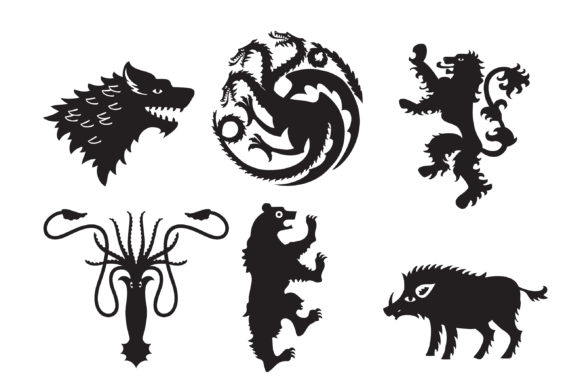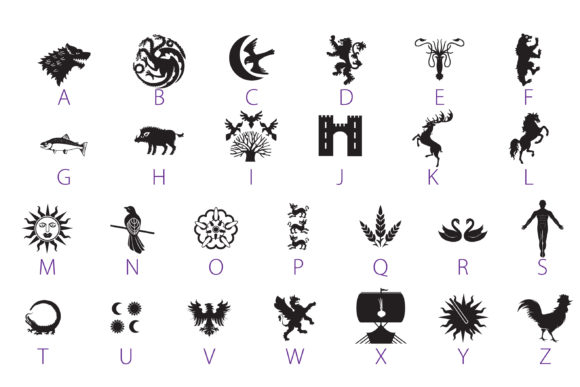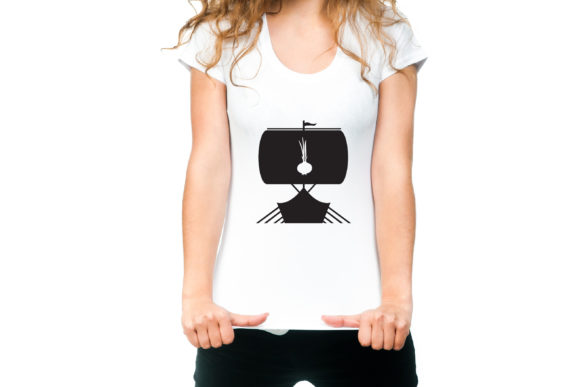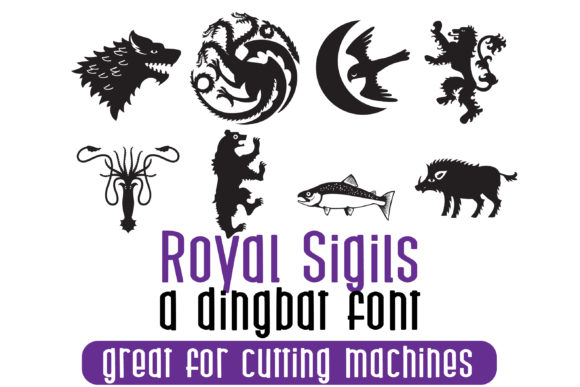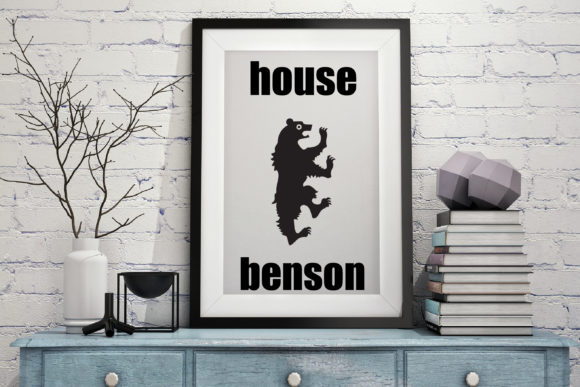
Royal Sigils Font
Royal Sigils is a captivating dingbats font that draws inspiration from classic heraldic designs. With its unique and regal feel, this font is perfect for adding a touch of grandeur to your design projects. Here are some ideas on how you can use Royal Sigils to create stunning and original designs:
1. Logos and Branding: If you’re working on a project that requires a sense of prestige and heritage, Royal Sigils can be a perfect choice. Use the dingbats to create intricate and symbolic logos for luxury brands, hotels, or historical institutions. The unique heraldic elements will give your brand a distinct and regal identity.
2. Invitations and Stationery: Whether it’s for weddings, formal events, or special occasions, Royal Sigils can add an elegant touch to your invitations and stationery. Incorporate the dingbats as decorative elements, borders, or monograms to create a sense of sophistication and exclusivity.
3. Book Covers and Editorial Design: If you’re designing book covers or working on editorial layouts, Royal Sigils can bring a sense of history and mystery to your designs. Use the dingbats to create ornate borders, chapter dividers, or decorative elements that enhance the visual appeal and give a hint of the story within.
4. Packaging and Product Labels: Give your products a touch of luxury and distinction by incorporating Royal Sigils into your packaging design and product labels. Use the dingbats to create intricate patterns, decorative accents, or to symbolize the unique qualities of your products.
5. Event Branding and Decor: If you’re organizing a special event or a themed party, Royal Sigils can be the perfect font to create a cohesive and captivating visual experience. Use the dingbats to create banners, signage, or decorative elements that transport your guests to a world of nobility and splendor.
6. Tattoo Designs: Royal Sigils can be an excellent choice for creating unique and meaningful tattoo designs. The heraldic symbols and intricate details of the dingbats can be incorporated into personalized tattoo designs that carry a sense of heritage, honor, or personal significance.
Remember to explore the various dingbats in Royal Sigils and experiment with their placement, size, and combinations to create truly original and captivating designs. Let the regal and heraldic feel of Royal Sigils inspire your creativity and bring a touch of elegance to your projects.